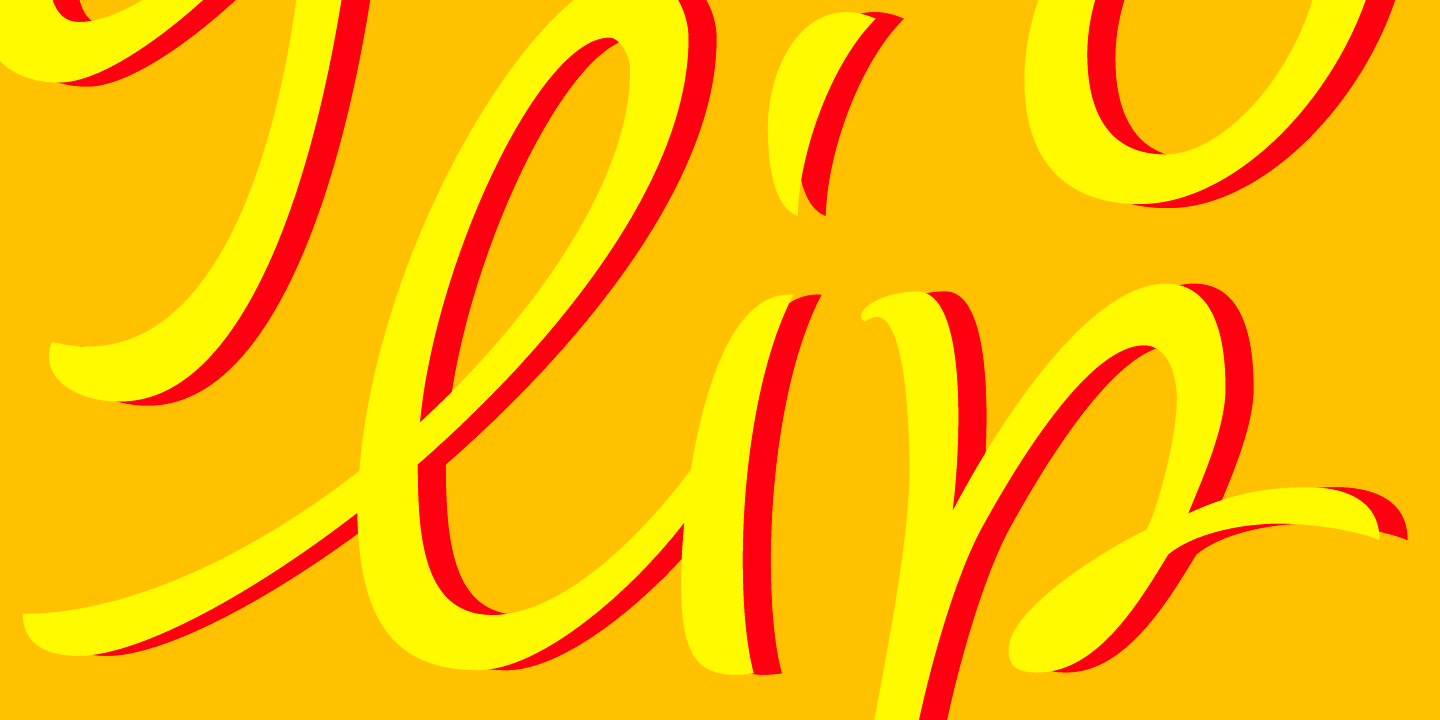
Designed by Elena Albertoni, Dyna Pro is a hand drawn and script font published by Anatoletype.
Elena Albertoni on Dyna: “While studying in Paris, I worked for a design studio specialized in packaging. French supermarkets are full of lettering with a handwriting flavor, which seems to go very well with a wide range of very different products. With the aim to analyze and summarize the qualities of these letterings in one typeface, I faced choices and limits similar to the ones encountered with handwriting. The letters are sloped at different angles, which gives them rhythm; their open shapes suggest movement and gesture. Letters want to dance!”